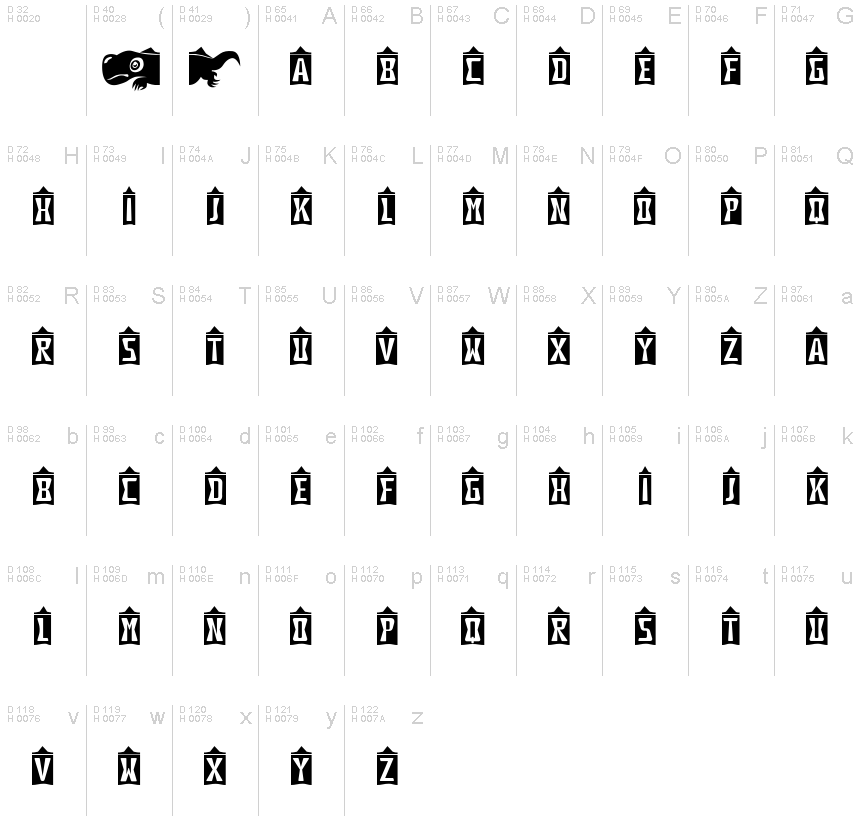
Cave Regular
Cave is a striking display font that immediately commands attention. Designed by Vladimir Nikolic, this decorative typeface exudes a bold, prehistoric charm with its angular, reptilian-inspired forms. The oversized, elongated letters evoke a sense of primal power, lending themselves seamlessly to bold headlines, impactful logos, and eye-catching branding.
The dramatic weight and distinct silhouette of Cave make it an exceptional choice for design projects that seek to convey a sense of raw, untamed energy. Its robust, expressive character would shine in outdoor adventure campaigns, rugged product packaging, or festival promotions, infusing each application with a captivating, primordial aesthetic. Whether used as a standalone display font or combined with more refined typography, Cave's striking presence is sure to leave a lasting impression.